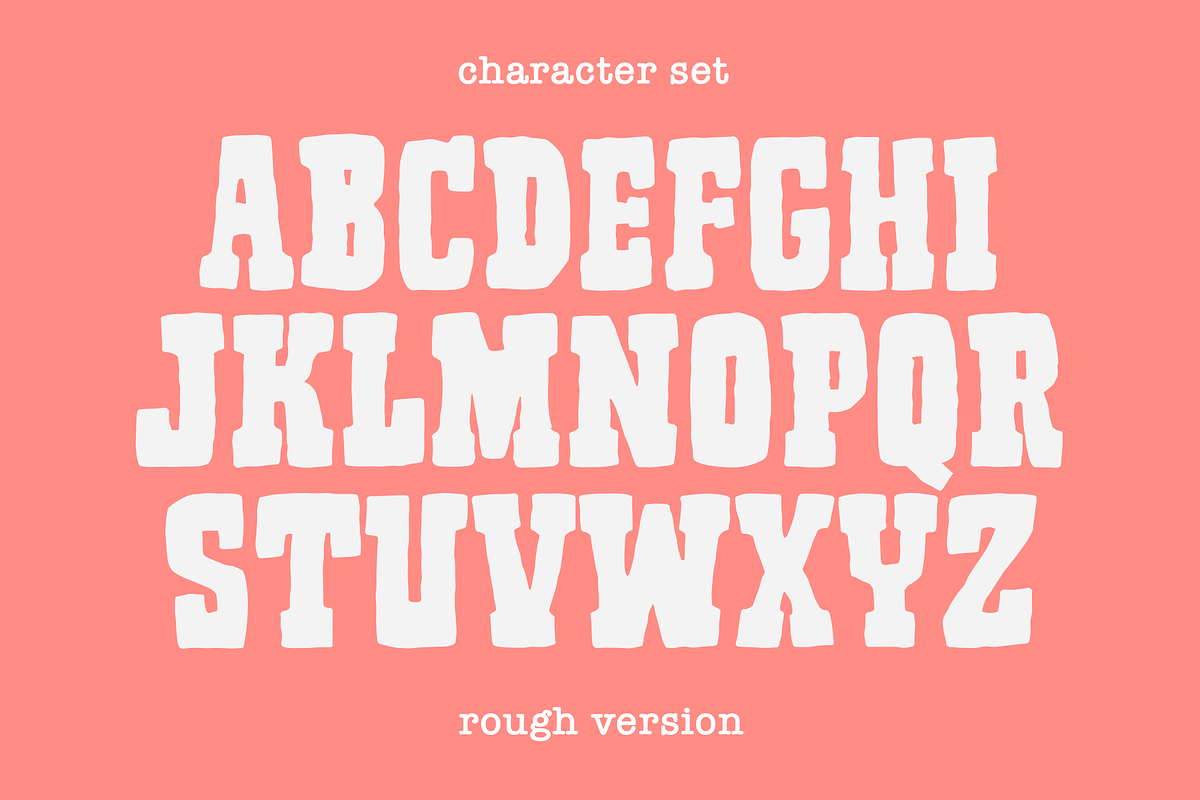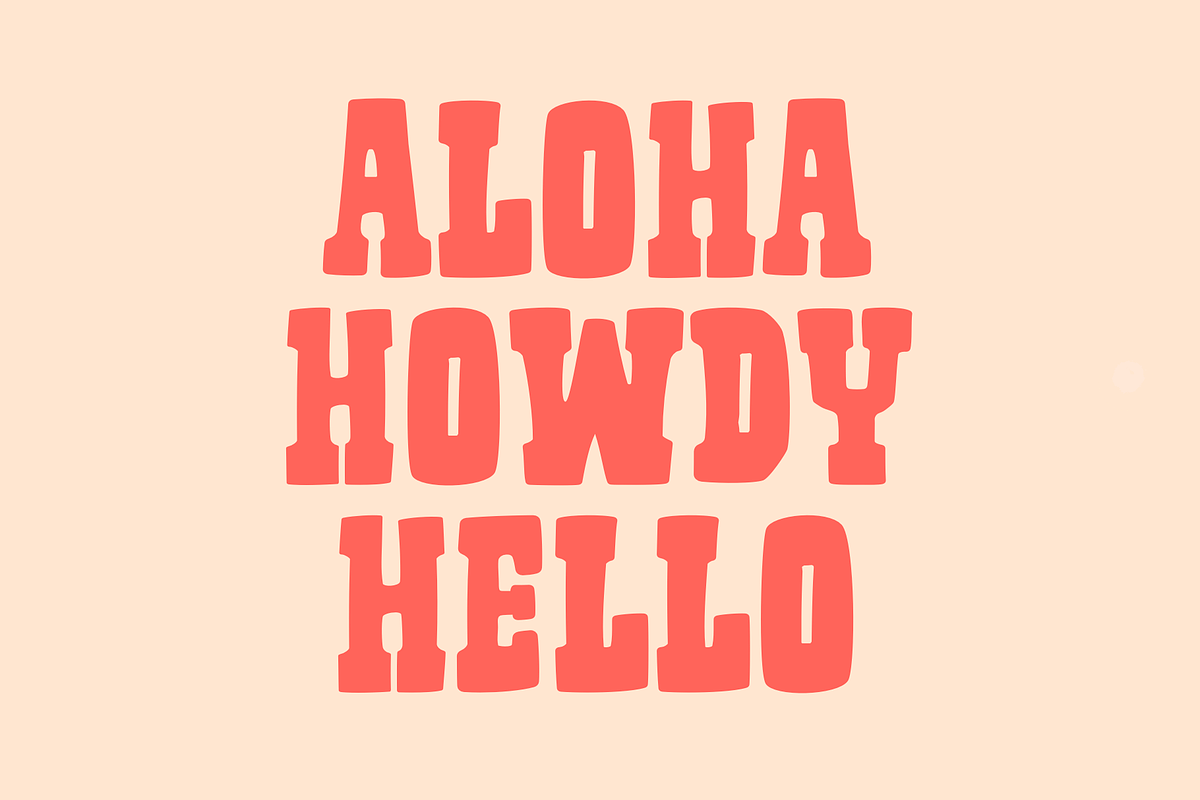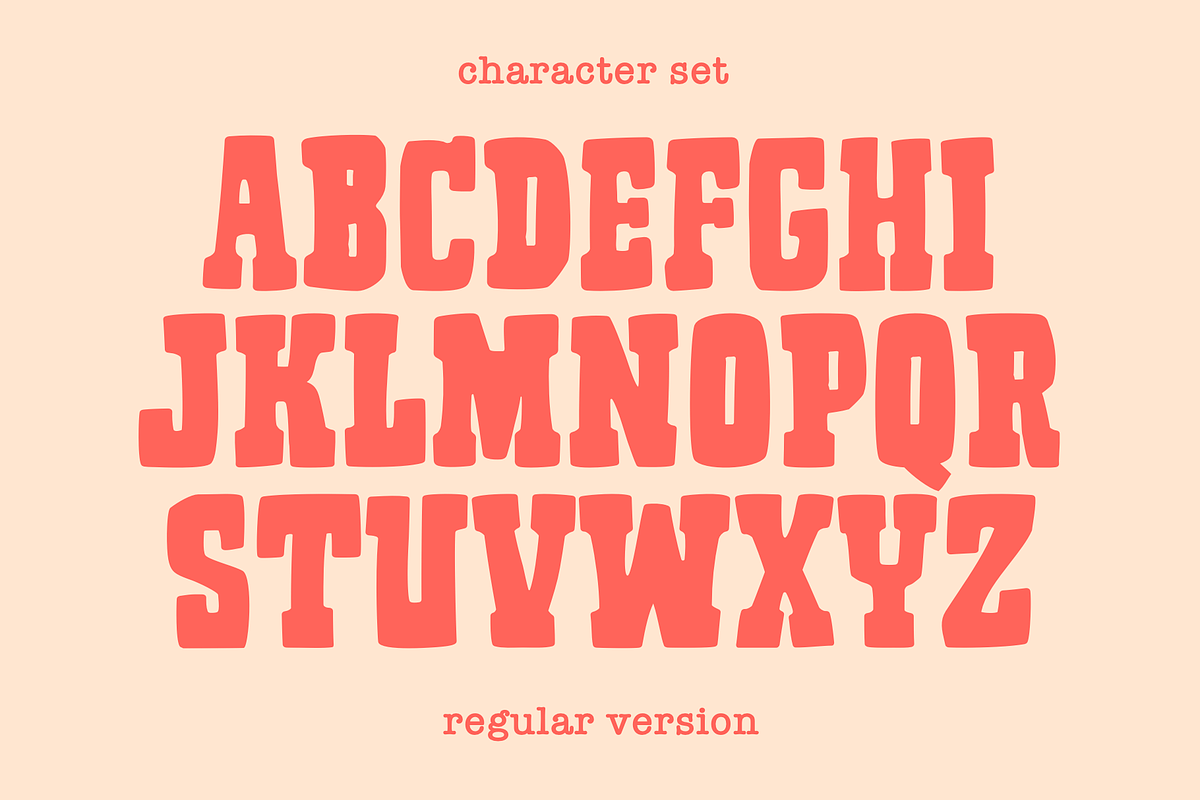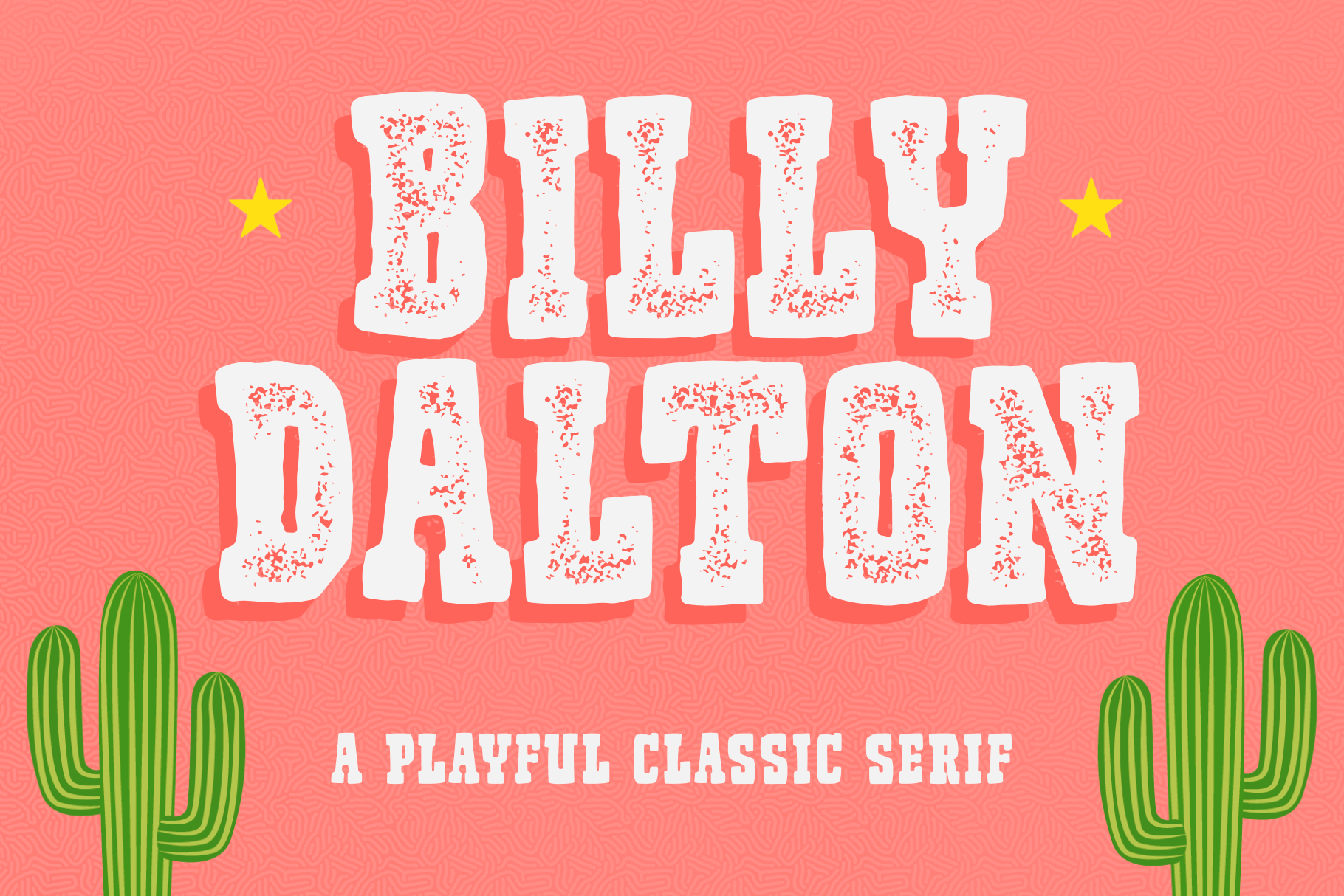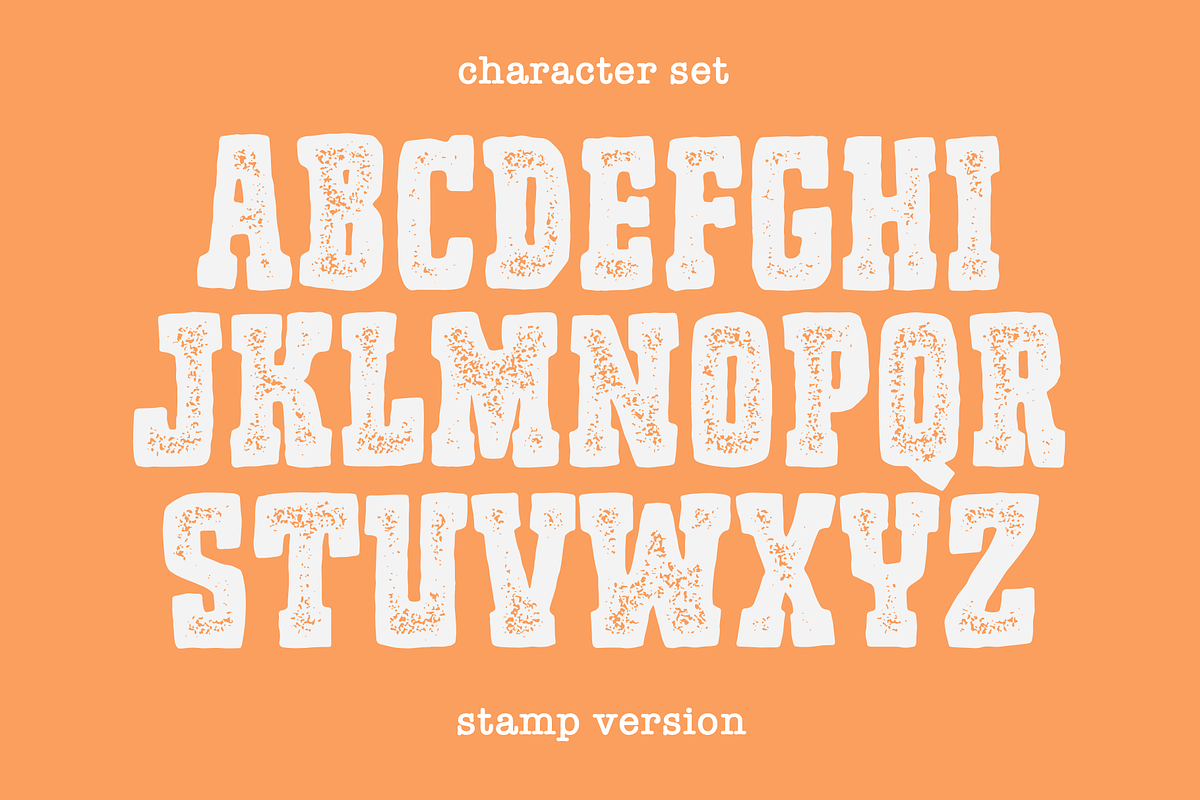
Billy Dalton Font - Western Font
Billy Dalton is a captivating serif font that effortlessly blends playfulness with classic Western style. This typeface available in SVG format, compatible with advanced tools such as Cricut and Glowforge, and for use in Procreate. The letters boast a harmonious balance between traditional serif elements and a contemporary playfulness, making Billy Dalton versatile for a wide range of design applications.